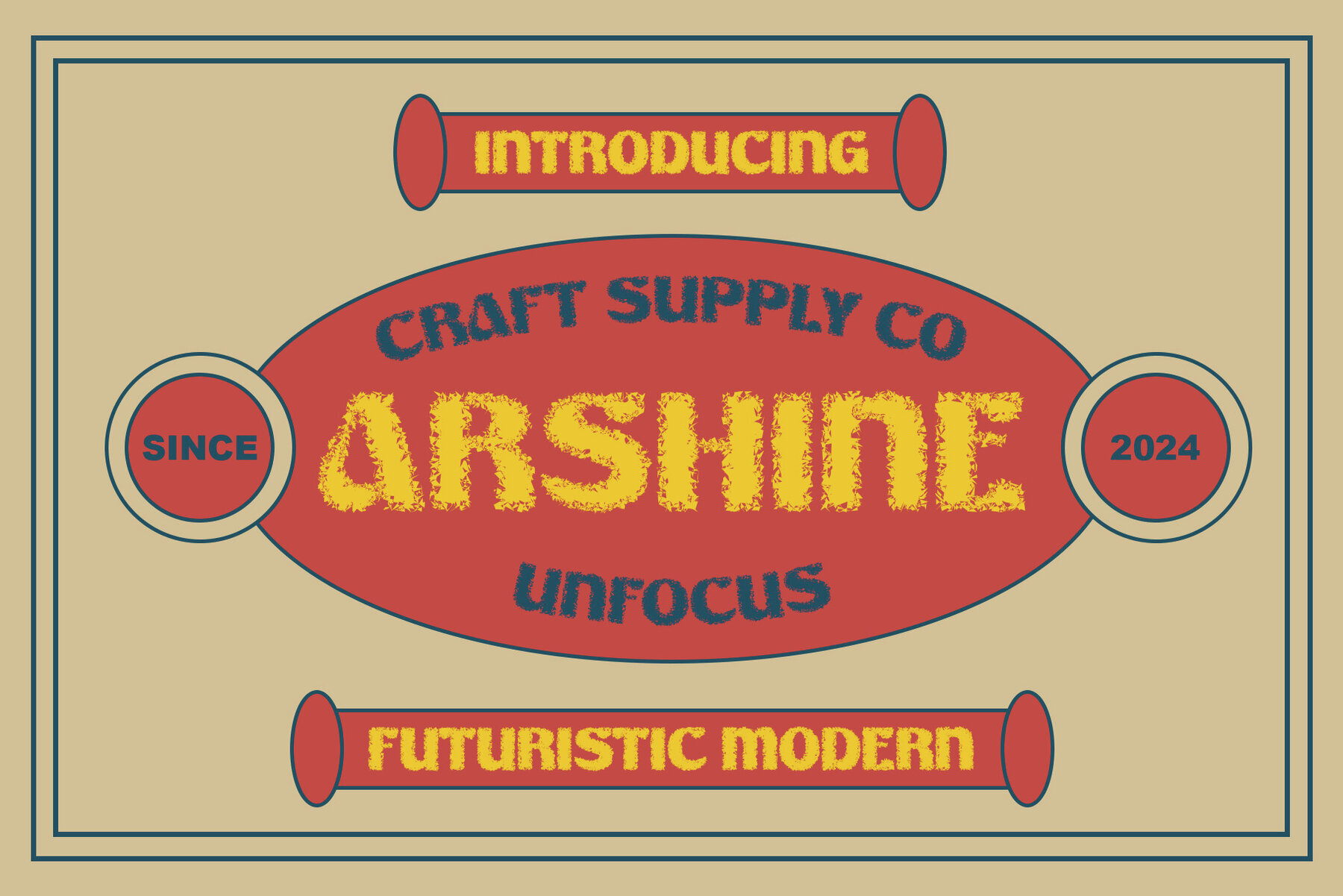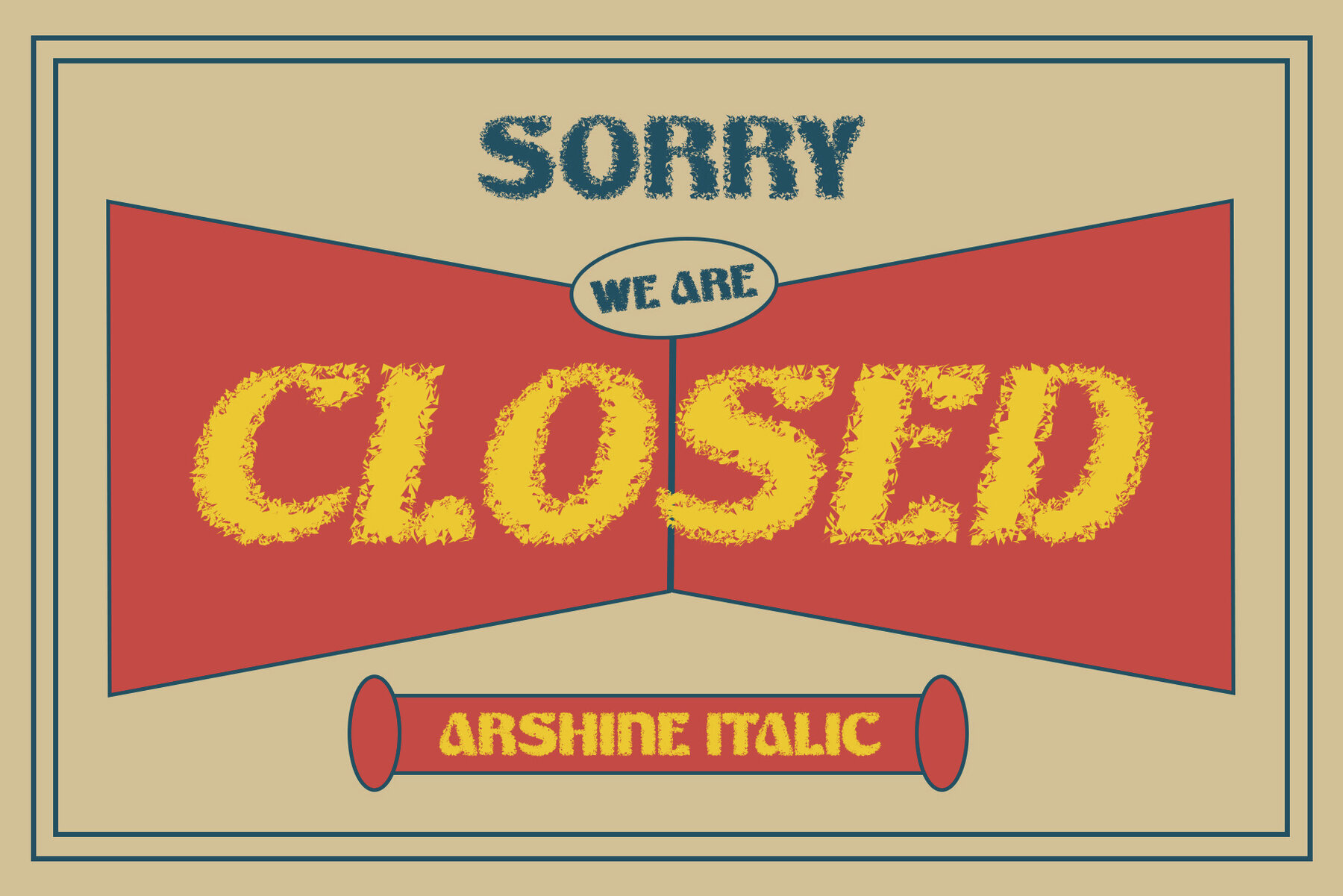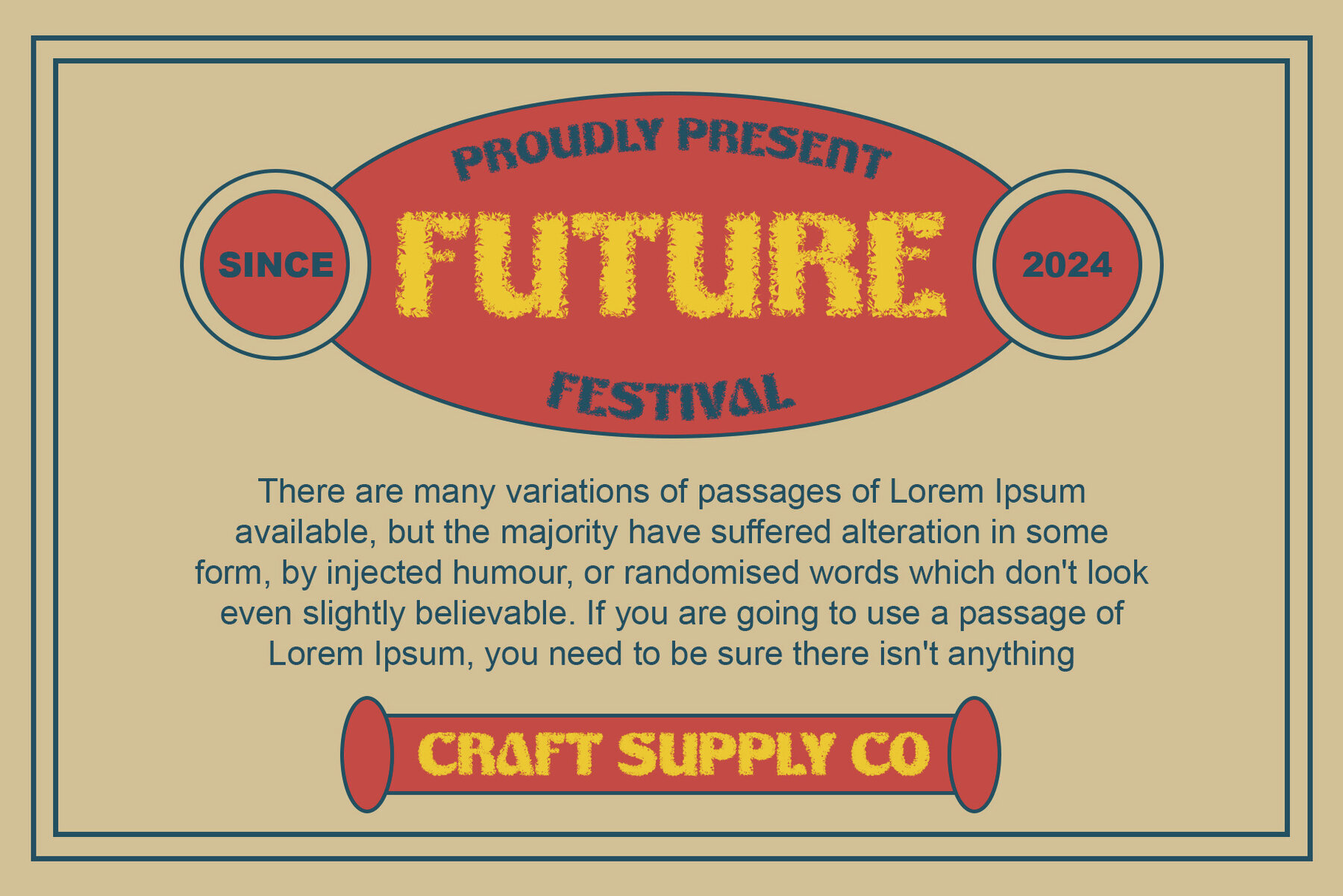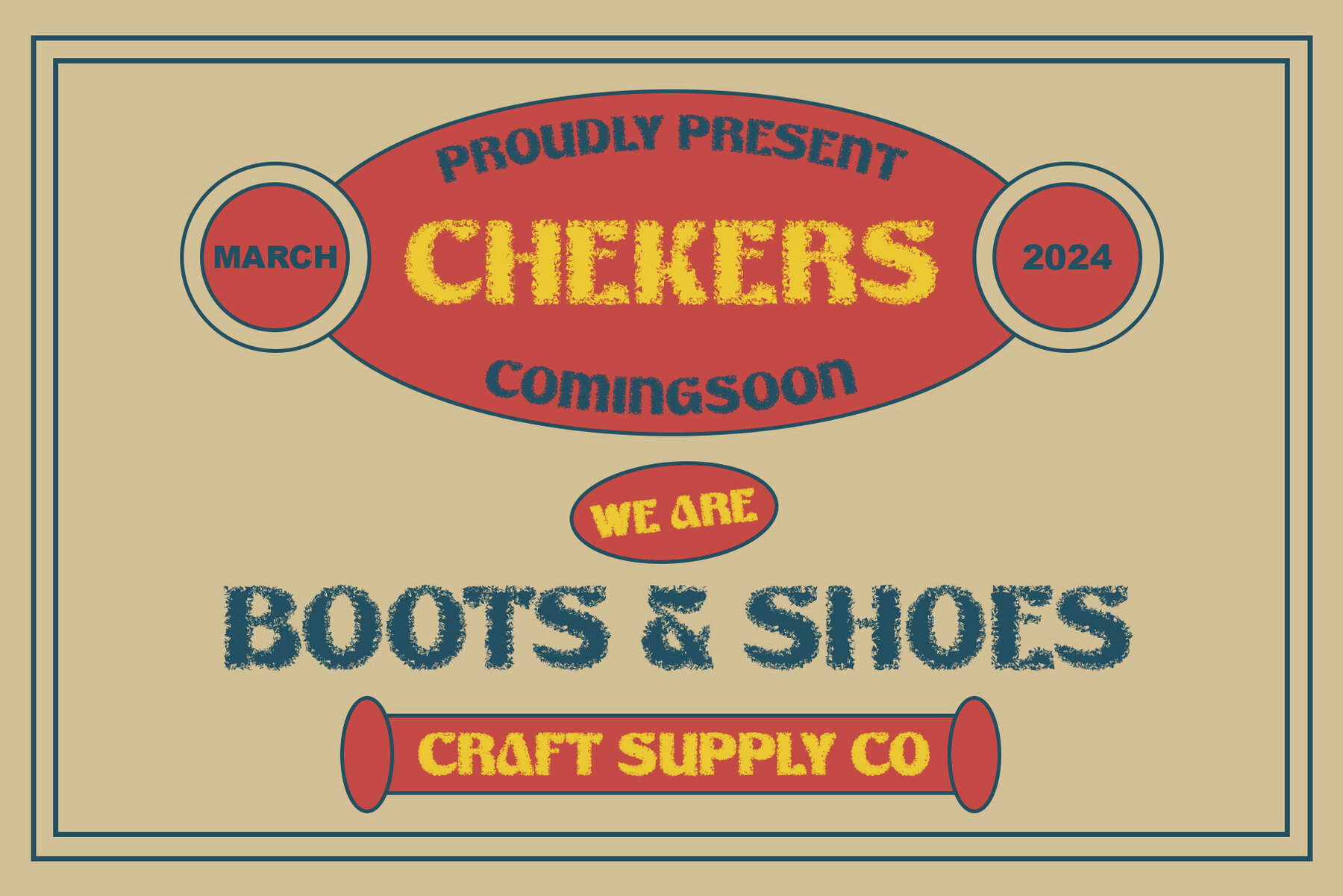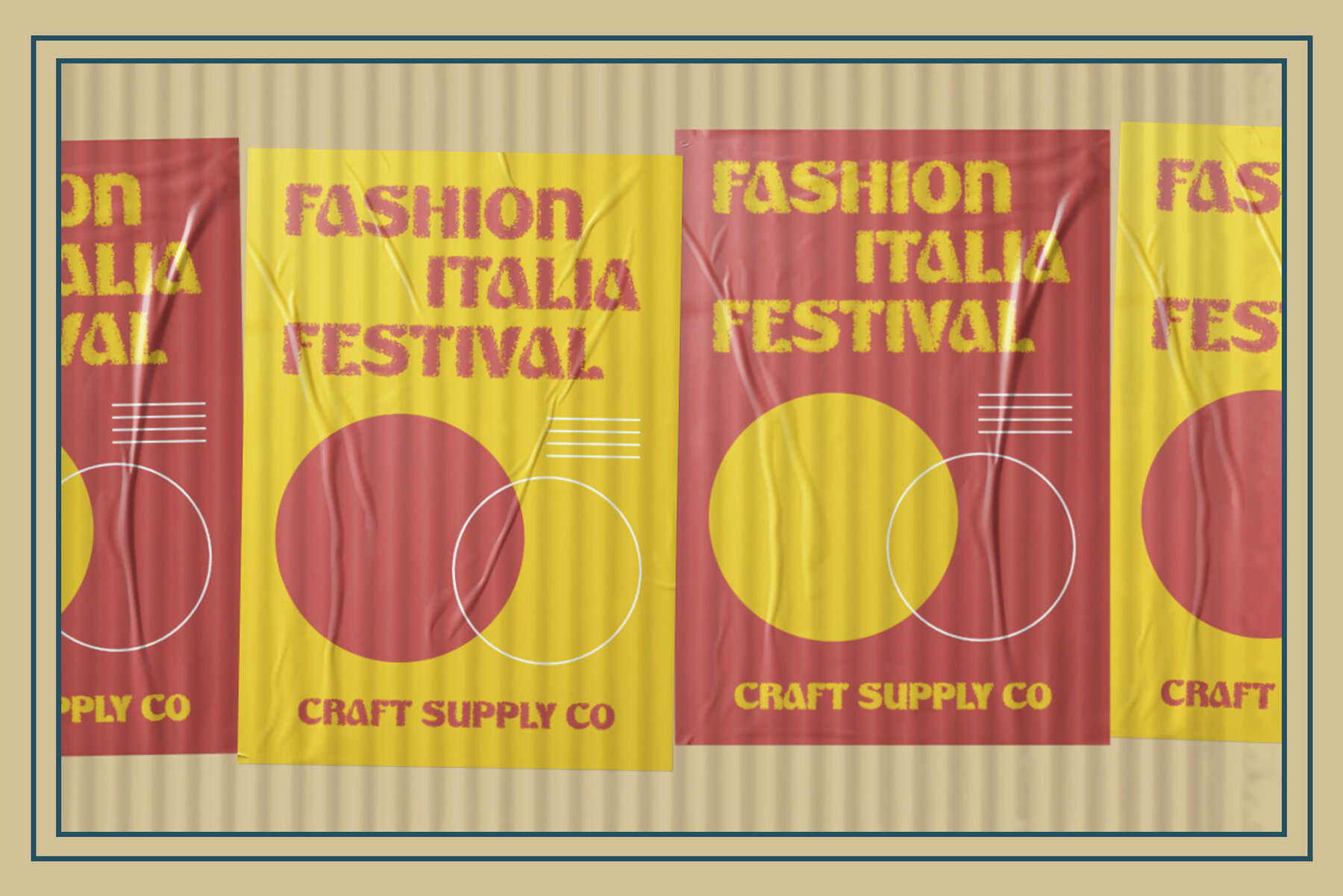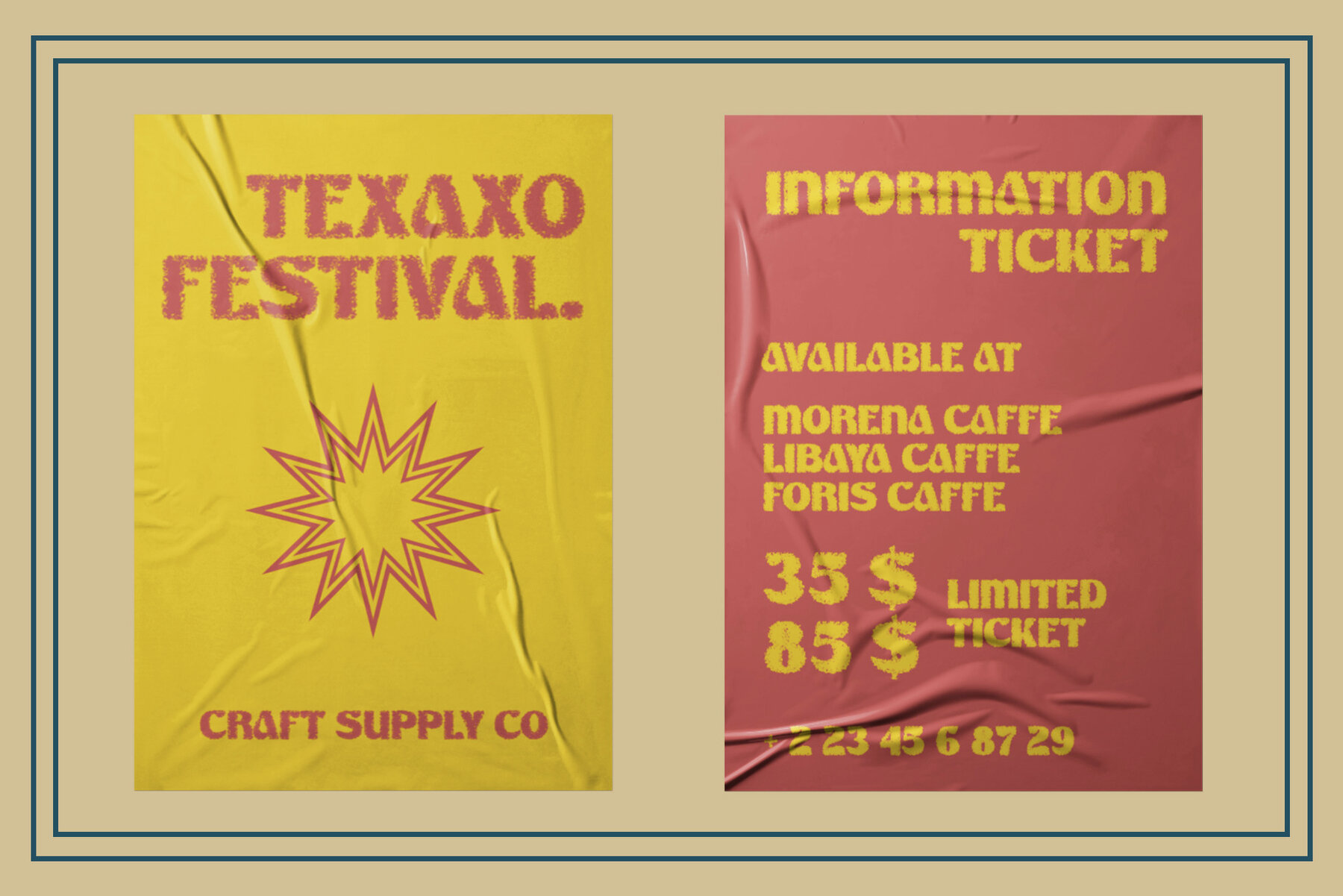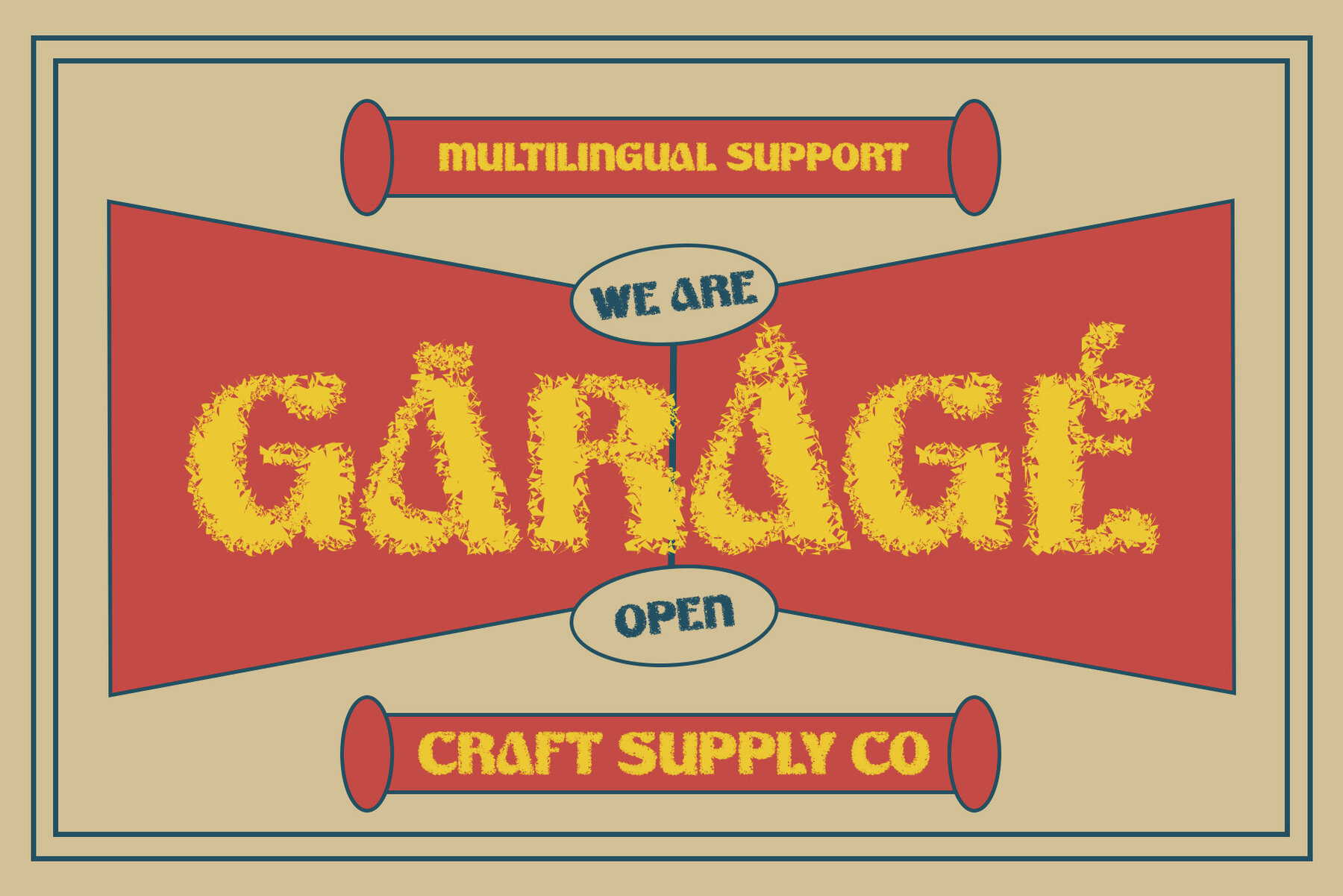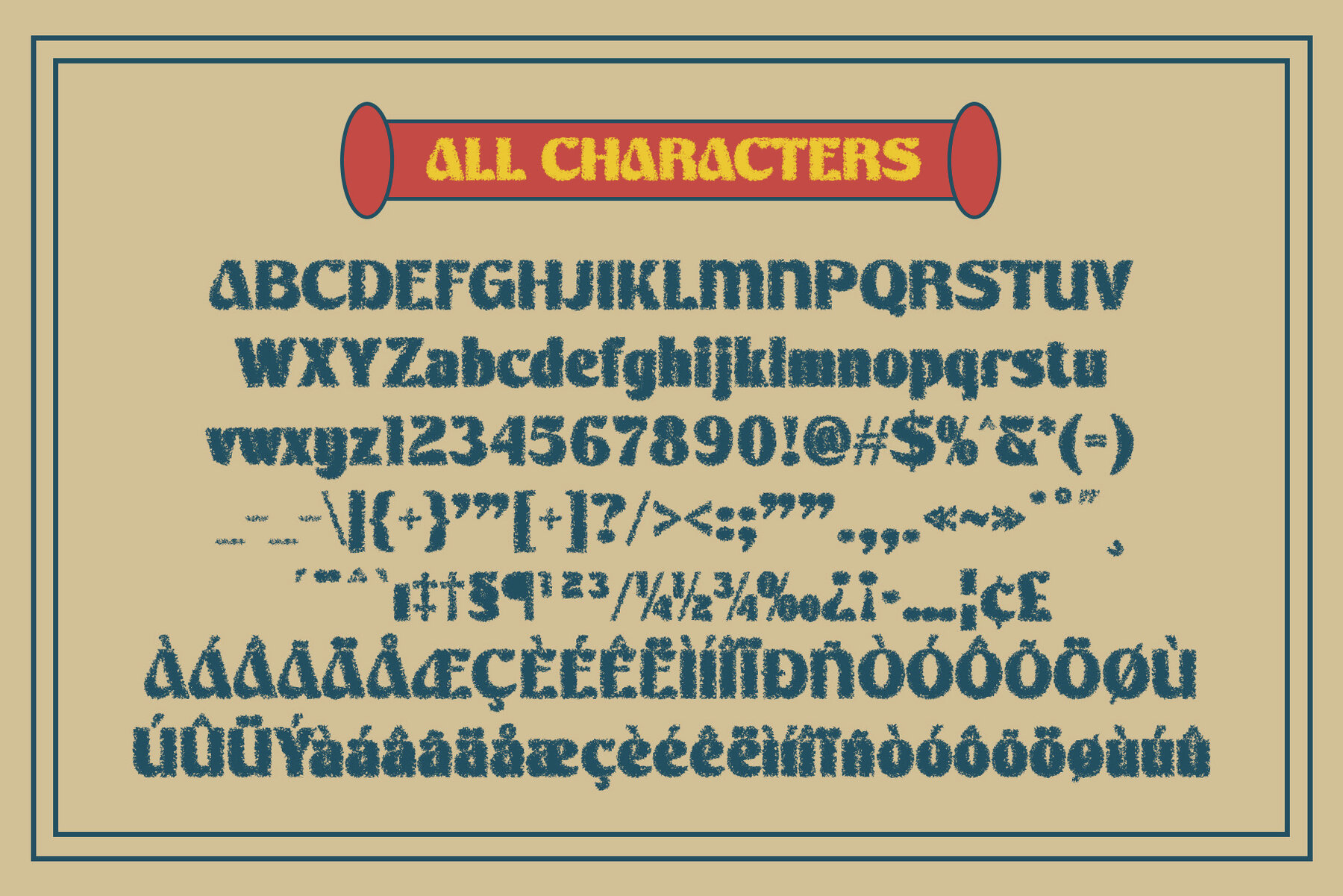
Arshine Unfocus Font
Arshine Unfocus is a distinctive display font that captures vibrant energy and playful vibes, making it ideal for designs that aim to stand out. The font features unique character shapes and an unconventional style that embody a fresh and dynamic aesthetic. Due to its playful and vibrant style, Arshine Unfocus works exceptionally well with bold color schemes and creative, informal layouts. It serves as a strong focal point in any artistic project, from posters to web design.Arshine Unfocus: A Funky Display Font by Craft Supply Co.
Ideal Use Cases
Design Integration